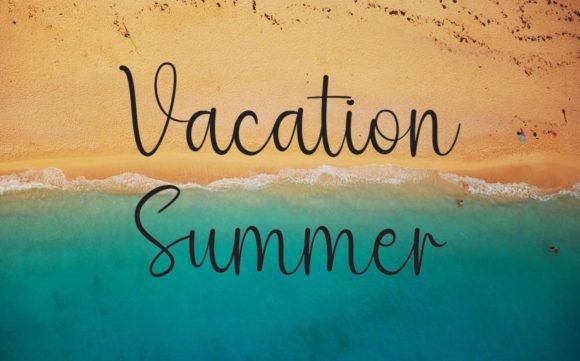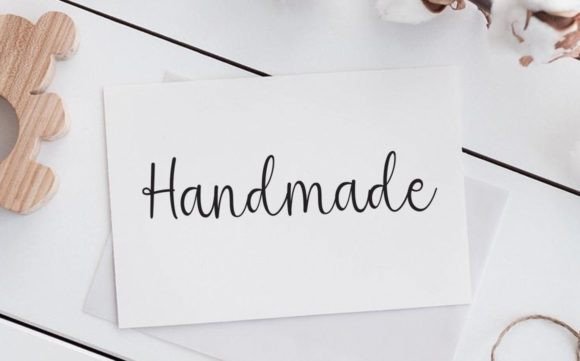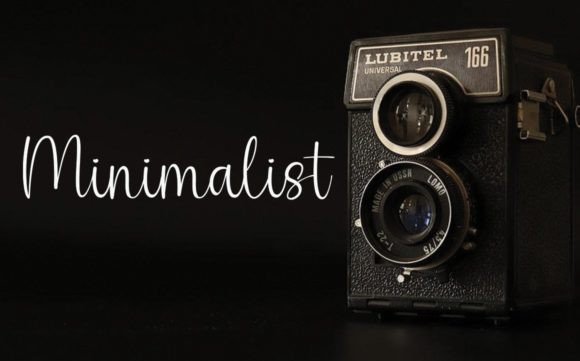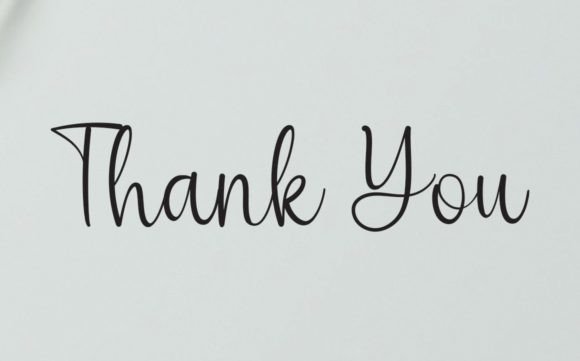
Sparkling Font
About Sparkling Font
“Sparkling” is an enchanting handwritten font that brings a touch of magic to your designs. This versatile font is well-suited for a wide spectrum of applications, ranging from greeting cards to headlines. With its romantic and captivating vibe, “Sparkling” is guaranteed to infuse your next project with a delightful and charming feel.
The enchantment of “Sparkling” is evident in its handwritten style, which adds a personal and whimsical touch to your text. The flowing characters and unique charm make it an ideal choice for various design contexts where a romantic and enchanting atmosphere is desired.
The versatility of “Sparkling” shines through in its ability to adapt to different applications. Whether you’re crafting heartfelt greeting cards or creating attention-grabbing headlines, this font elevates your text with a touch of magic, creating a visually appealing and engaging result.
The romantic feel embedded in “Sparkling” makes it a standout choice for projects that aim to evoke emotions and create a connection with the audience. The font’s charm adds a delightful element to your designs, making them memorable and inviting.
In essence, “Sparkling” is more than just a font; it’s a design asset that brings enchantment and romance to your creative projects. Embrace its handwritten allure and let it transform your greeting cards, headlines, and more into works of art that resonate with a romantic and captivating feel. Allow “Sparkling” to be the element that adds a touch of magic to your next design endeavor, leaving a lasting impression on those who encounter it.